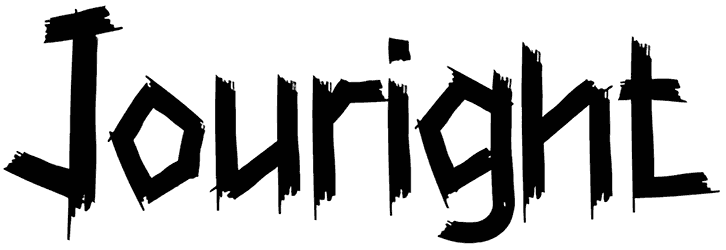
Jouright Font
If you’re looking for a death font for scary projects that need violent elements, we recommend Jouright. This font is designed in a square and geometrical way, and an inky brush pattern can be seen on its letters. As a r…
If you’re looking for a death font for scary projects that need violent elements, we recommend Jouright. This font is designed in a square and geometrical way, and an inky brush pattern can be seen on its letters. As a result, diversifying your dripping fonts can give new life to projects that need more simplicity.